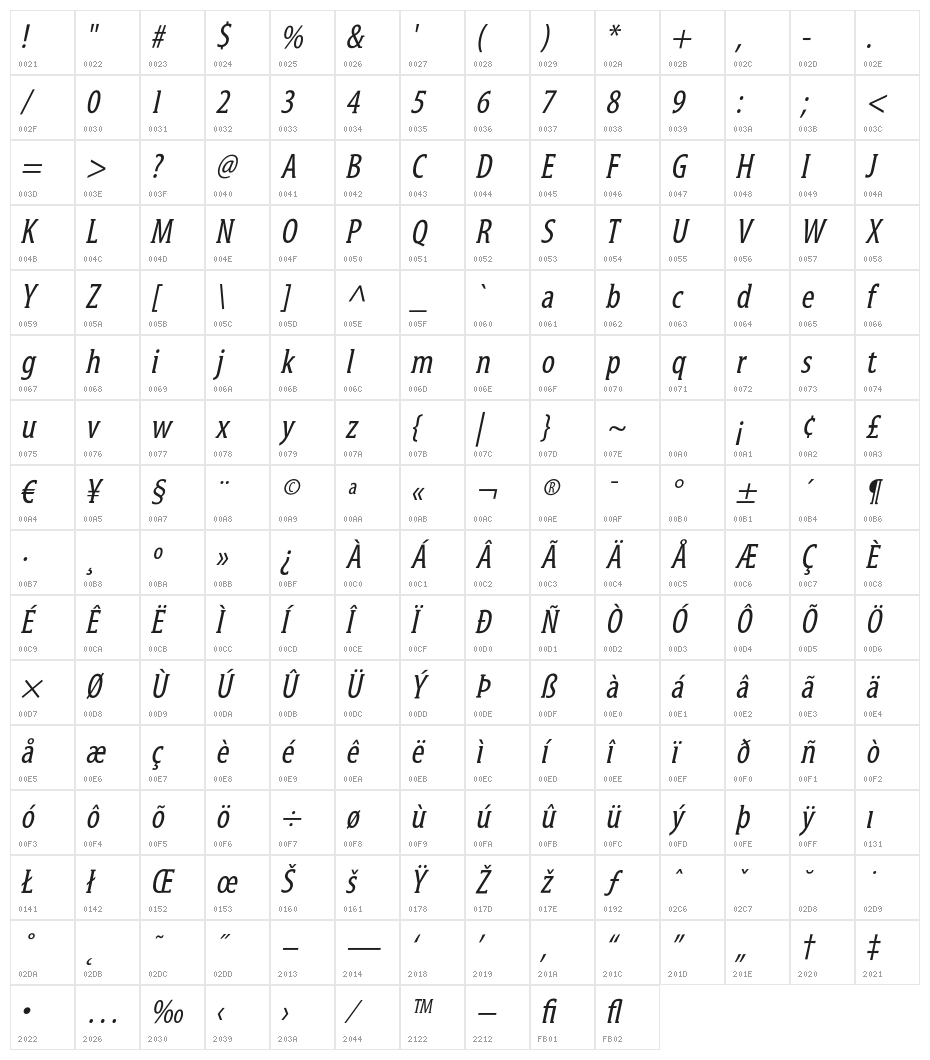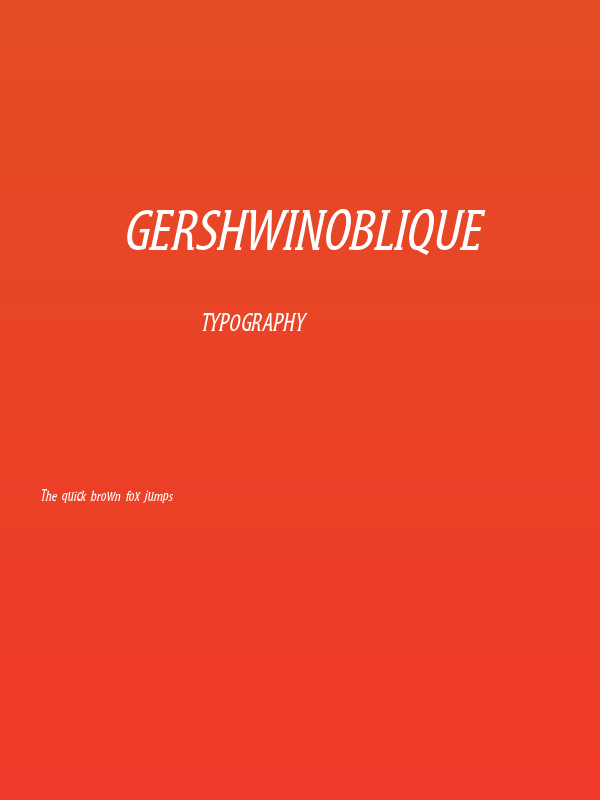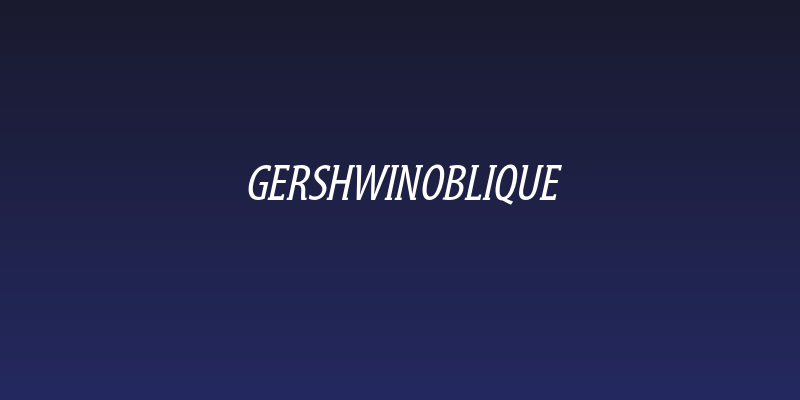
GershwinOblique Font
GershwinOblique Description
This font features an elegant and dynamic oblique style, characterized by its slanted, italicized appearance. The letters are well-defined with a moderate contrast between thick and thin strokes, giving it a sophisticated and fluid look. The uppercase and lowercase letters maintain a consistent slant, enhancing the font's cohesive aesthetic. The numerals and special characters are designed to match the overall style, ensuring uniformity across all text elements. This font's design is both classic and modern, making it versatile for various applications.
| Use Case | Headlines, Logos, Editorial design |
| Proposed Projects | Ideal for use in branding, editorial design, advertising, and any project requiring a touch of elegance and sophistication. |